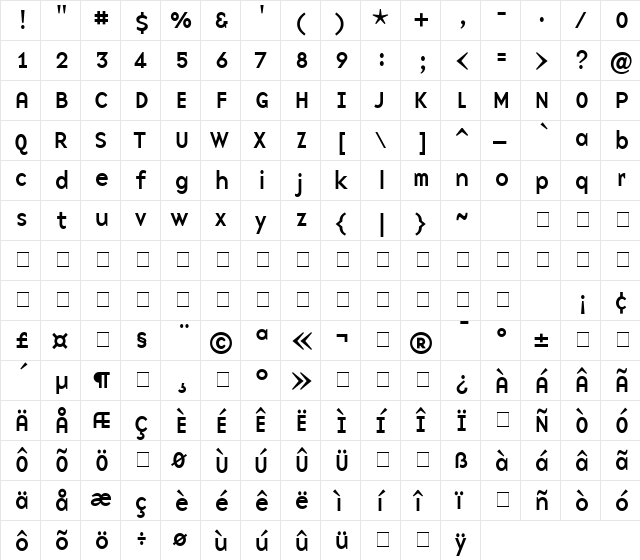
Base9 Medium
Design Context for Base9 Typeface
Base9 offers clean, dependable letterforms without strong stylistic allegiance, making it a practical choice for designers who need flexibility.
Pro Tip: Pair Base9 with a font of contrasting weight or personality to build a more expressive typographic hierarchy.